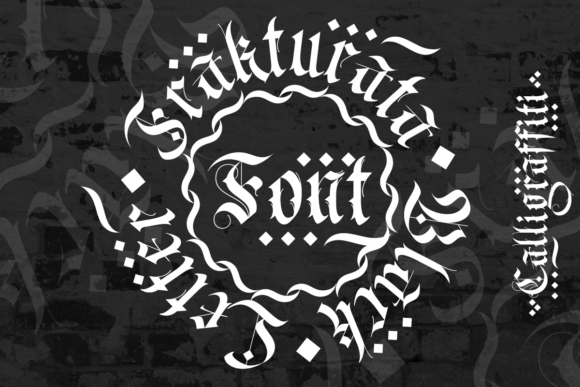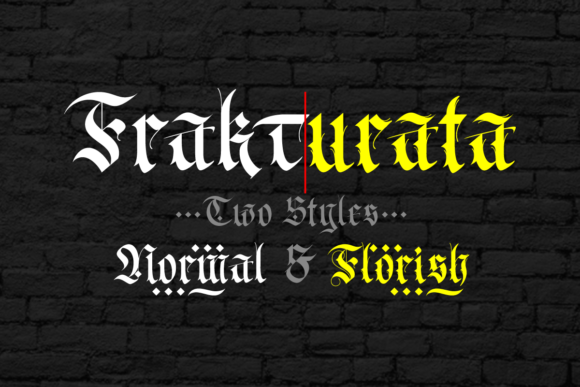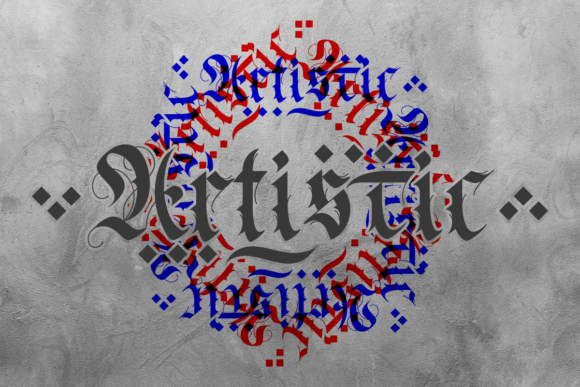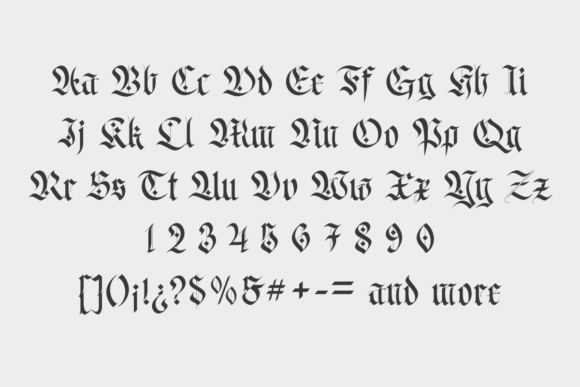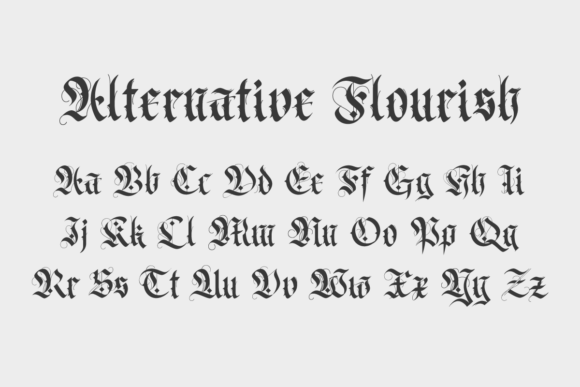
Introduction to Frakturata Font
As designers, we’ve all been there – staring at a blank canvas, trying to bring our creative vision to life. The spark of inspiration hits, and suddenly, the perfect font pops into our minds. For many, that font is the Frakturata Font, a striking blackletter font that exudes confidence and dynamism. Its unique character is what sets it apart, making it a valuable addition to any design project.
So, what makes the Frakturata Font so special? Let’s dive into the details and explore the world of this incredible design resource.
Key Features of Frakturata Font
- Unique Gothic-inspired design perfect for creative projects requiring a touch of elegance and sophistication.
- Includes a range of characters and glyphs, including uppercase and lowercase letters, numbers, and punctuation marks.
Honest Review: Frakturata Font
- What works well: ✨ The font’s intricate details and ornate design make it perfect for titles, headings, and other prominent text elements. Its unique style also adds a personal touch to any creative project.
- What works well: ✨ The Frakturata Font is highly versatile and can be used for a wide range of design applications, from digital media to print materials.
However, there are some limitations to consider: ⚠️ The font may not be suitable for projects that require a transparent background, as the intricate details may not render well in this context. Additionally, some users may find the font’s style too ornate or overwhelming.
Overall, I’m impressed with the Frakturata Font’s high quality and creative potential. While it may have some limitations, it’s a valuable addition to any designer’s toolkit, especially for those working on high-end or luxury projects.
Use the Frakturata Font in conjunction with other design elements to create a unique and eye-catching design. Experiment with different font sizes and styles to add visual interest to your design. Use the font in a creative project such as a logo, brochure, or business card.
The Frakturata Font is ideal for use in a variety of creative projects, including logos, brochures, business cards, and posters. It is also suitable for use in presentations, documents, and websites.